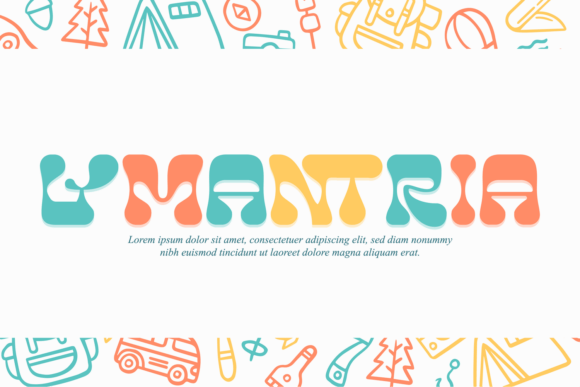
Welcome, typophiles, to the world of Lymantria, a treasure trove of animated typography that will transform your designs into dynamic masterpieces. Unleash your creativity and embark on a typographic journey that breaks the boundaries of conventional fonts.
Picture this: a bold, sassy, and utterly captivating font family that dances across your screen, capturing attention and leaving an indelible mark on your audience's minds. Lymantria is not just a font; it's an experience.
Crafted with meticulous precision, Lymantria embodies the perfect fusion of sans serif and groovy aesthetics, harmonized with the fluidity of the liquify technique. The result? An elastic, playful font that breathes life into your designs.
Step into a realm of endless possibilities, where Lymantria's versatility knows no bounds. Whether you're crafting vibrant branding, eye-catching titles, or trendy clothing designs, Lymantria will elevate your work to unprecedented heights.
Unleash the power of PUA encoding and unlock the full potential of Lymantria's glyphs and swashes. Seamlessly integrate them into your designs and watch as your creations transform into dynamic masterpieces.
Lymantria is more than just a font; it's an expression of your individuality, a reflection of your creative spirit. Embrace the quirky charm of Lymantria and watch as your designs take on a life of their own.